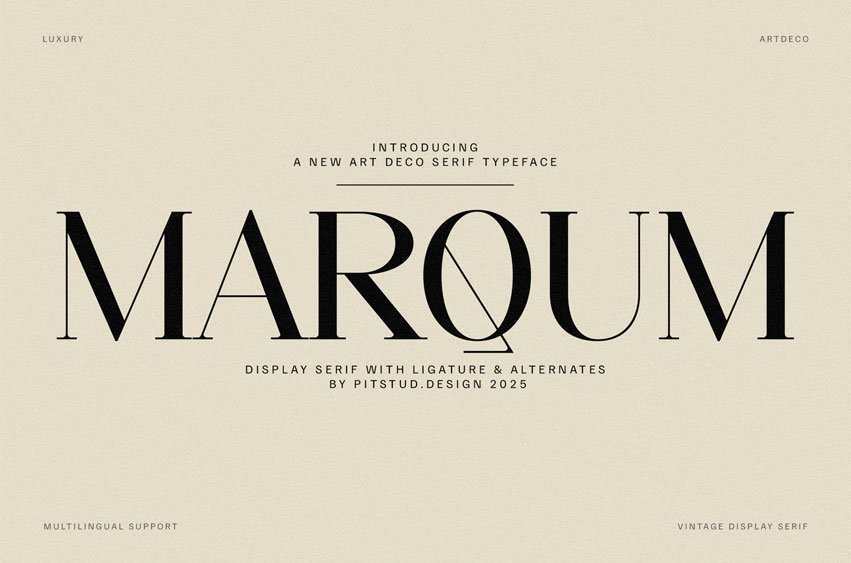
Marqum Font is a refined serif typeface that brings sophistication, prestige, and timeless beauty to creative projects. Featuring art deco-inspired details, graceful curves, and a modern art deco feel, it delivers a striking presence ideal for branding, fashion, and editorial work.
Perfect For From brand identities and magazine covers to premium packaging and event invitations, Marqum balances elegance with readability. Its sleek proportions and distinctive details make it equally suited for logos, signage, and promotional materials.
Font Features
- Elegant Serif Style: Influenced by art deco and classic luxury trends
- Complete Character Set: Uppercase, lowercase, numbers, punctuation, symbols
- OpenType Options: Alternates, ligatures, stylistic sets
- Multilingual Support: English, French, Spanish, German, Portuguese, and more
Marqum combines timeless elegance with modern versatility, adapting seamlessly across print and digital platforms to give every design a sense of class and distinction.
Use Cases
- Luxury brand identity
- Fashion editorials
- Premium packaging
- Event invitations
- Elegant logos